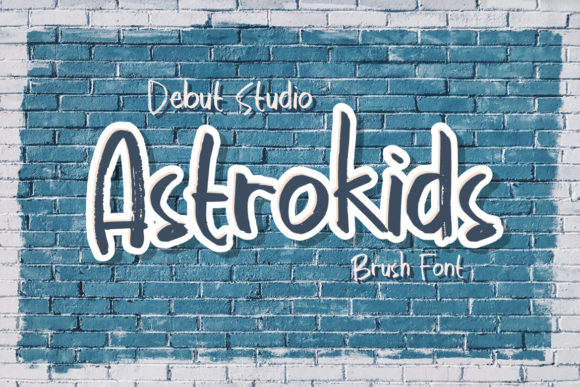
Unleash the Enchantment of Astrokids Font: A Whimsical Adventure Through the Galaxy of Imagination
Within the realm of digital artistry, where creativity knows no bounds, lies Astrokids Font, a celestial symphony of imagination and delight. Crafted with meticulous precision by the renowned Debut Studio, this script font is more than just a collection of letters and symbols; it's an invitation to embark on a whimsical journey through the stars.
With each stroke of Astrokids Font, you'll discover a universe of possibilities, a tapestry of enchantment woven from the threads of your own imagination. Its playful, handwritten style dances across the page like a constellation of joy, evoking a sense of wonder and childlike glee.
Imagine the magic of a handwritten note, penned with the Astrokids Font, carrying your heartfelt words across the digital divide, leaving a trail of stardust in its wake. Its unique and captivating design transforms ordinary text into an extraordinary spectacle, adding a touch of whimsy and enchantment to every message you send.
But Astrokids Font is not merely a decorative wonder; it's a versatile tool that unlocks a world of creative expression. Whether you're crafting social media posts that sparkle with personality, designing eye-catching logos that leave a lasting impression, or creating digital art that transports viewers to a realm of imagination, Astrokids Font is your celestial companion.
Its seamless flow and effortless charm make it a natural choice for branding and marketing materials. Let Astrokids Font infuse your designs with a touch of playfulness, capturing the attention of your audience and leaving them captivated by your message.